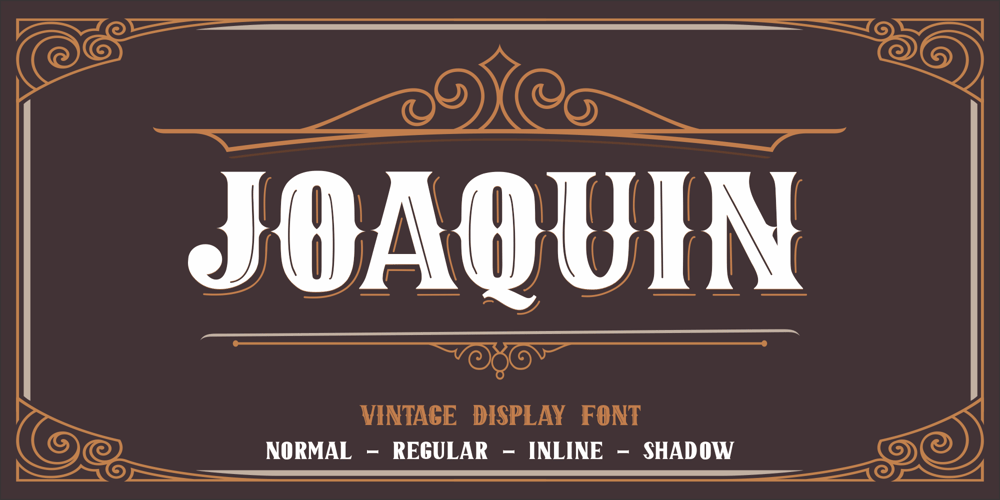
Joaquin
Joaquin font
Joaquin Font Family was designed by SU KASIH and published by Mozatype. Joaquin contains 4 styles and family package options. JOAQUIN is a vintage font family. This font’s retro look and style is inspired from many vintage packaging and from typographic cover lettering.It is perfect for vintage logo design, labels, posters, signage, t-shirt, storefront, headlines, or packaging design. greeting cards and logotype. JOAQUIN includes 4 different styles; Normal, Regular, Inline, and Shadow. So you can combine them with each other and get fancy headlines.What’s Included :- Works on PC & Mac- Easy to use ( Installations )- Compatibility Windows, Apple, Linux, Cricut, Silhouette, and Other cutting machinesThank you for purchasing this font. Please appreciate, if you like this.ENJOY it 🙂